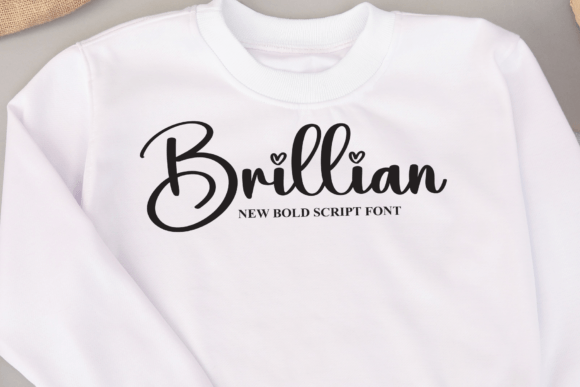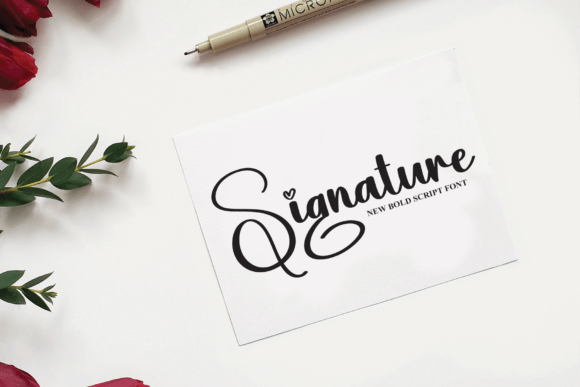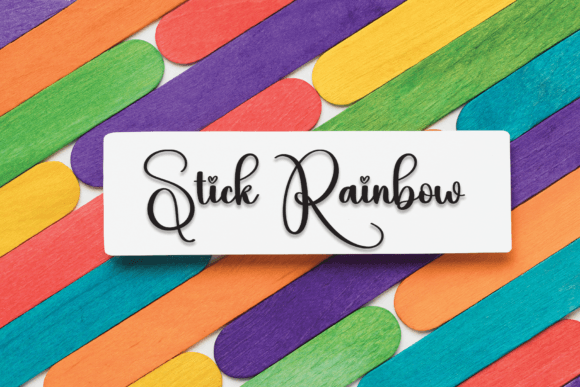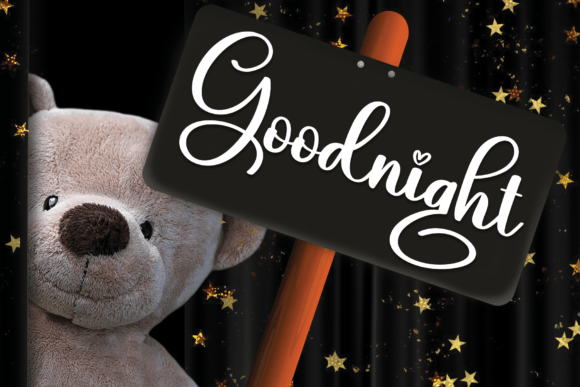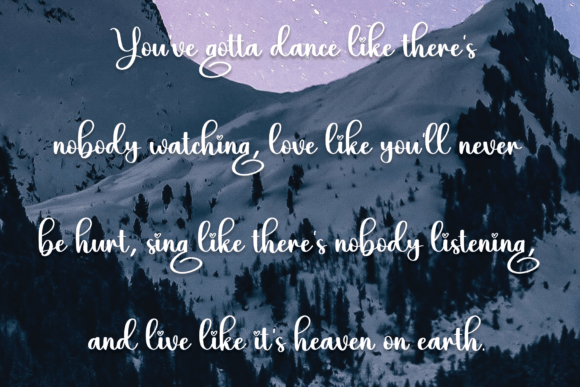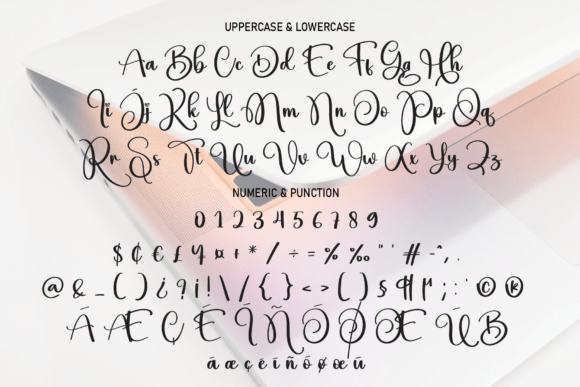
Introducing Digital: The Sweet and Cursive Handwritten Font
In the world of digital design, typography plays a crucial role in conveying the tone and personality of a brand or project. A well-chosen font can elevate your design, making it more engaging, memorable, and visually appealing. If you’re looking for a font that exudes joy, romance, and elegance, look no further than Digital, a sweet and cursive handwritten font.
The Charm of Digital Font
Digital is a gentle font that boasts a unique, cursive handwritten style, perfect for adding a touch of whimsy and sophistication to your designs. Its flowing lines and delicate curves create a sense of movement and fluidity, making it ideal for a wide range of design projects. Whether you’re working on branding, logos, wedding materials, greeting cards, fashion, or marketing promotions, Digital is sure to impress.
Key Features of Digital Font
- Sweet and Cursive Handwritten Style: Digital’s unique font style is characterized by its sweet, cursive, and handwritten look, which adds a touch of warmth and personality to your designs.
- Versatile and Adaptable: This font is incredibly versatile and can be used on various design projects, from elegant branding and logos to romantic wedding materials and stylish fashion designs.
- Easy to Read: Despite its cursive nature, Digital is surprisingly easy to read, making it perfect for body text, headings, and titles.
- Elegant yet Casual: Digital strikes the perfect balance between elegance and casualness, making it suitable for designs that require a touch of sophistication without being too formal.
Design Ideas with Digital Font
Digital’s flexibility and charm make it an excellent choice for a variety of design projects. Here are some ideas to get you started:
- Branding and Logos: Use Digital to create a unique and memorable brand identity that stands out from the crowd.
- Wedding Materials: Add a touch of romance and elegance to your wedding designs, including invitations, save-the-date cards, and wedding stationery.
- Greeting Cards: Create beautiful and heartfelt greeting cards for special occasions, such as birthdays, anniversaries, and holidays.
- Fashion and Lookbooks: Use Digital to add a stylish and sophisticated touch to your fashion designs, lookbooks, and marketing materials.
- Marketing Promotions: Elevate your marketing campaigns with Digital’s elegant and eye-catching font style.
Why Choose Digital Font?
With so many fonts available, why choose Digital? Here are a few compelling reasons:
- Unique Style: Digital’s sweet and cursive handwritten style is unlike any other font, ensuring your designs stand out from the crowd.
- High-Quality Design: This font is meticulously designed to ensure high-quality and clear rendering on various devices and platforms.
- Multipurpose: Its versatility makes it suitable for a wide range of design projects, saving you time and effort in finding the right font for each project.